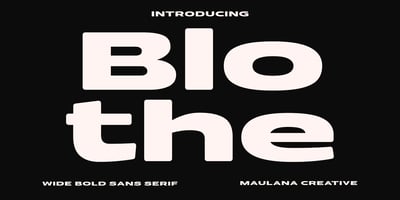
MC Blothe Display Font Font Family was designed by Gilang Maulana and published by Maulana Creative. MC Blothe Display Font contains 1 styles and family package options. Blothe is a wide sans serif basic font. With bold extended stroke, fun character with a bit of ligatures and alternates. To give you an extra creative work. Blothe font support multilingual more than 100+ language. This font is good for logo design, Social media, Movie Titles, Books Titles, a short text even a long text letter and good for your secondary text font with handwritten or script. Make a stunning work with Blothe font. Cheers, Maulana Creative